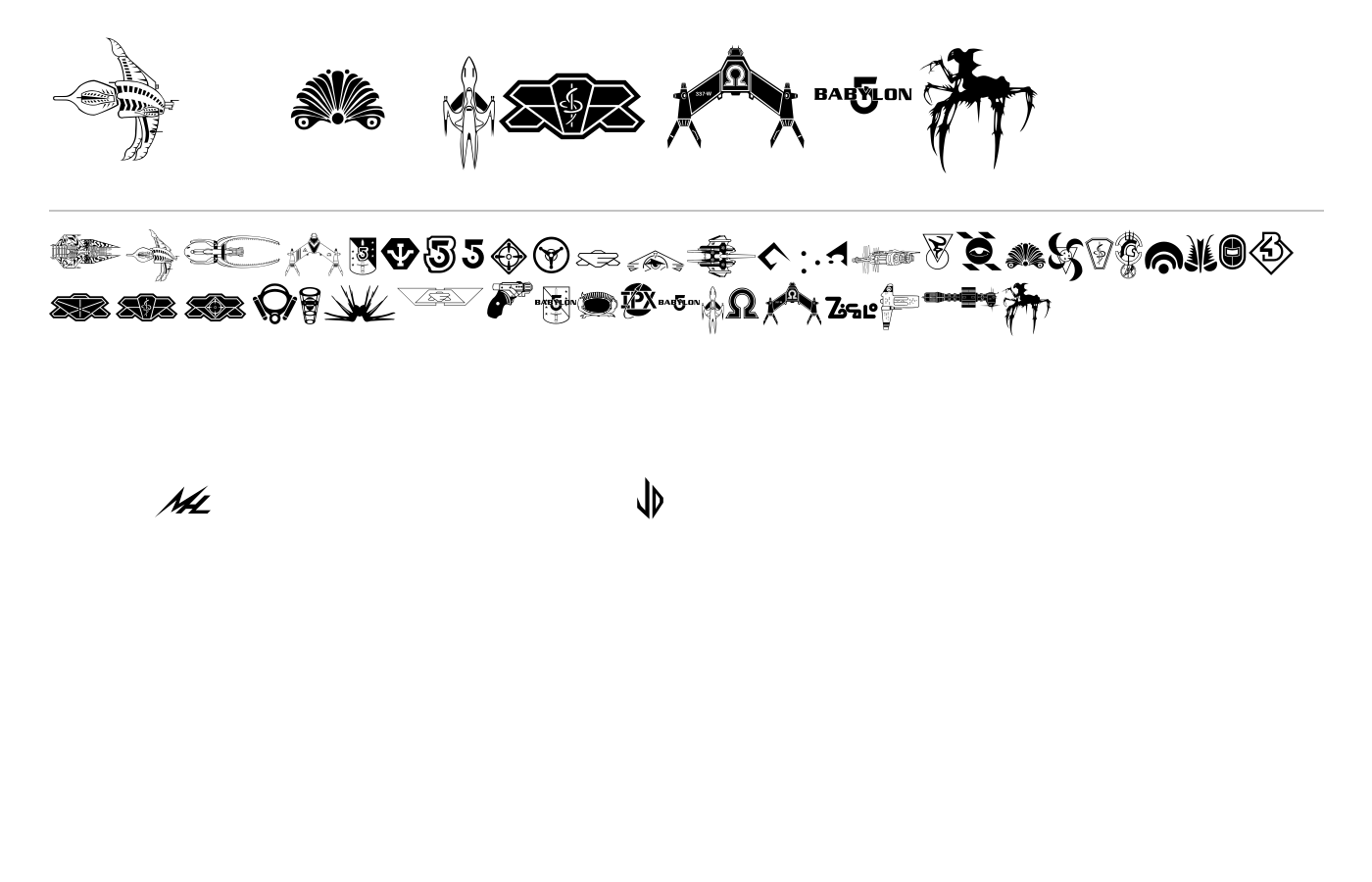
B5Symbols is a highly decorative symbol font featuring intricate, sci-fi and fantasy-inspired icons and logos. Its bold, geometric shapes combine futuristic technology with imaginative design, making it ideal for branding, gaming, or creative projects seeking a distinct and otherworldly visual identity. This font works best as graphic elements or logos rather than text, adding an edgy, modern flair to any design.
B5Symbols Font